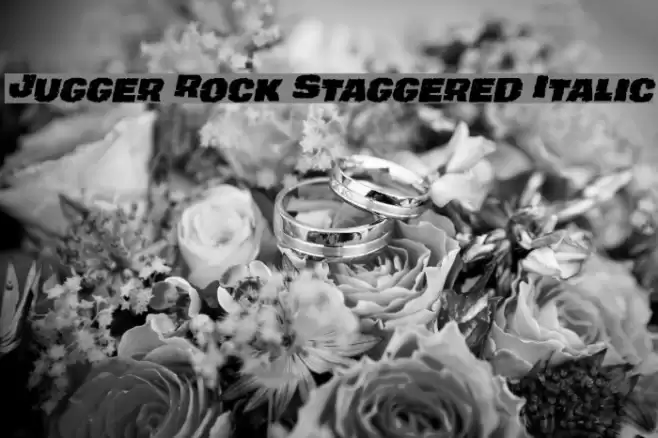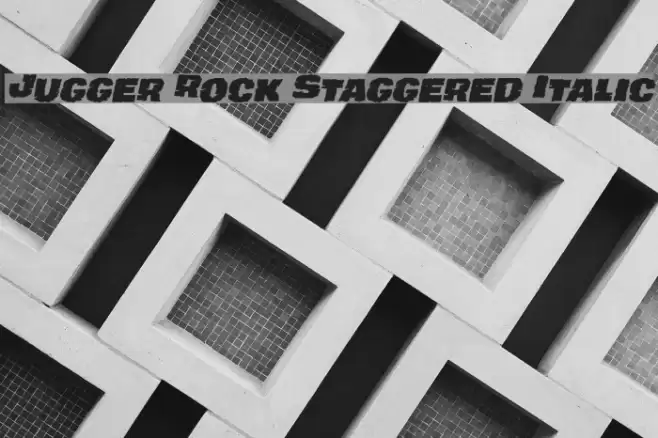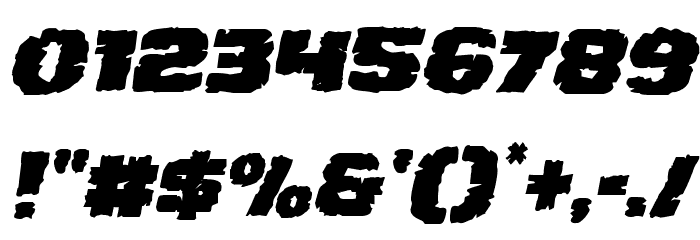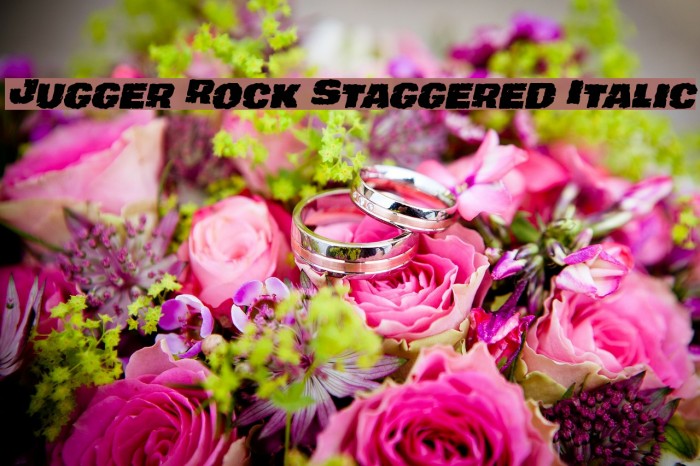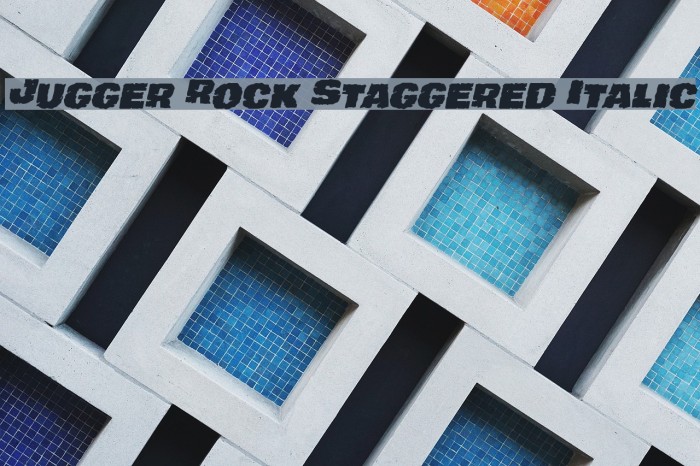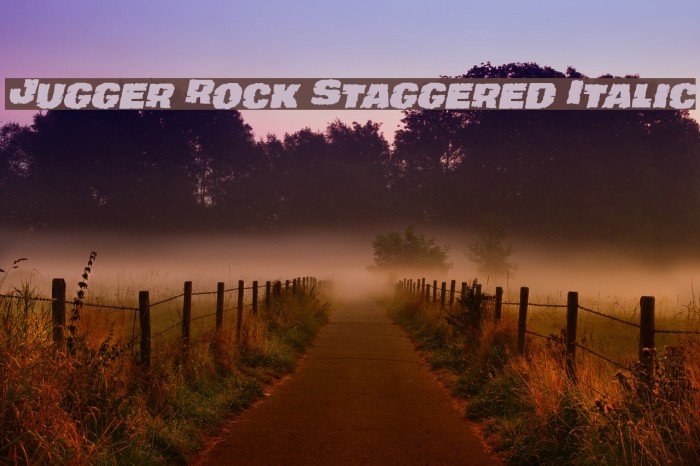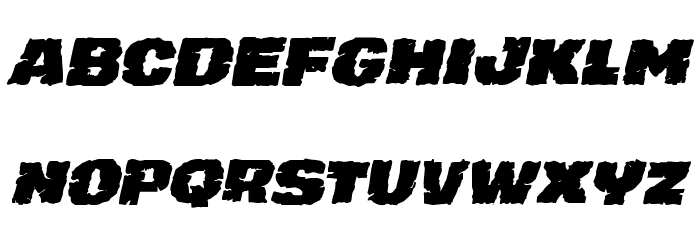
Jugger Rock Staggered Italic Font
Jugger Rock Staggered Italic Description
This font features a bold and rugged design with a staggered, italicized appearance. The characters are heavily textured, giving a distressed and dynamic look. The uppercase and lowercase letters maintain a consistent style, with thick strokes and irregular edges that create a sense of movement and energy. The numbers and special characters follow the same aesthetic, ensuring uniformity across all elements. This font is ideal for projects that require a strong, impactful presence, such as posters, album covers, or branding for edgy or adventurous themes.
A bold, rugged, and staggered italic font with a distressed texture from Uncategorized fonts.
- Proposed Projects: Posters, album covers, branding for edgy themes, adventure-themed graphics.